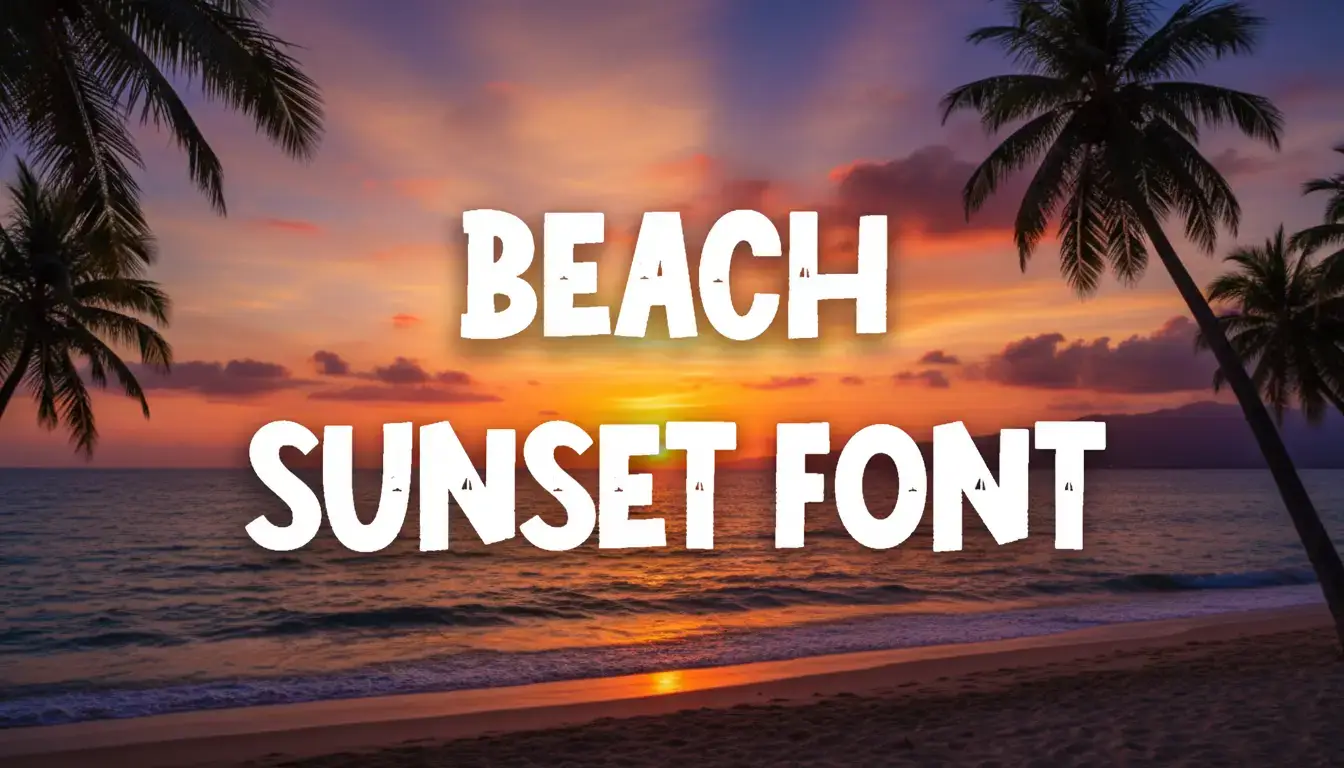
Beach Sunset Font
Beach Sunset
Beach Sunset is a fancy font. It's a decorative display font with plenty of personality, made to grab attention. It's a free download, and you can try it with your own text in the preview above first.
What You Can Type With Beach Sunset
Beach Sunset covers the full alphabet in upper and lowercase, plus all ten numbers, so you can set names, dates and prices without switching fonts. Everyday marks like &, !, ? and @ are there too. Thanks to its accented letters, it also works for Spanish, French, German, Portuguese and Italian, not just English.
Where Beach Sunset Works Best
Designers usually reach for fonts like Beach Sunset when they're making posters, logos and eye-catching headlines. Use it for one standout word or headline and let simpler fonts handle the rest.
Does Beach Sunset support accented letters?
Yes. Beach Sunset includes the accented letters needed for Spanish, French, German, Portuguese and Italian, so it works for more than just English.